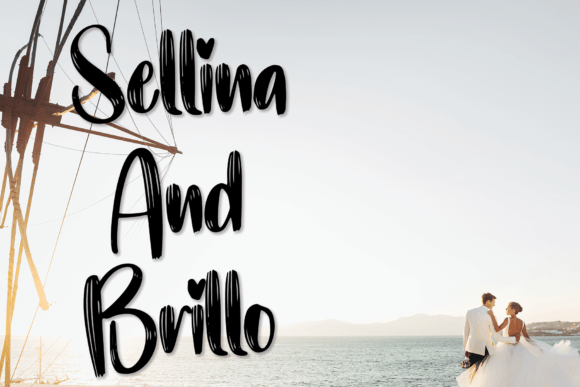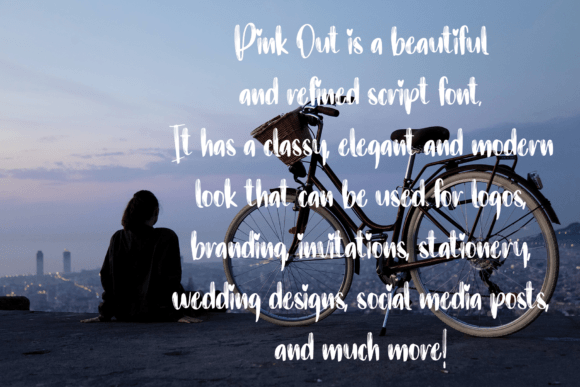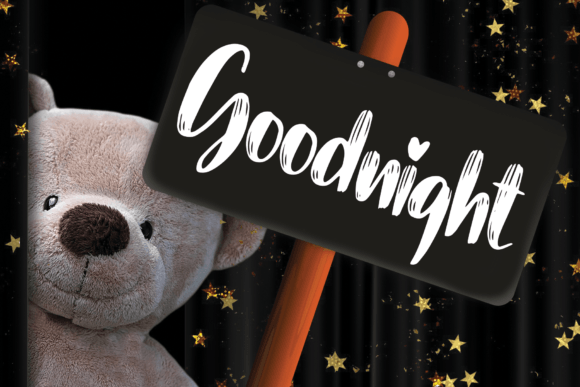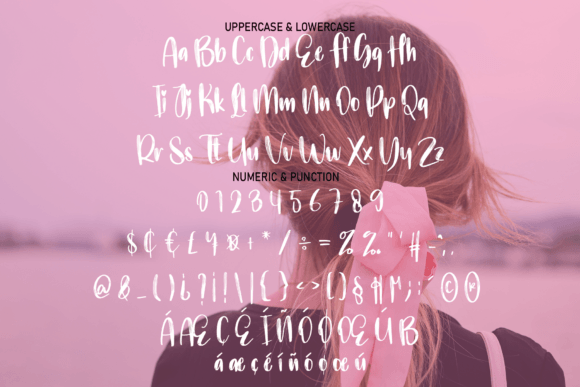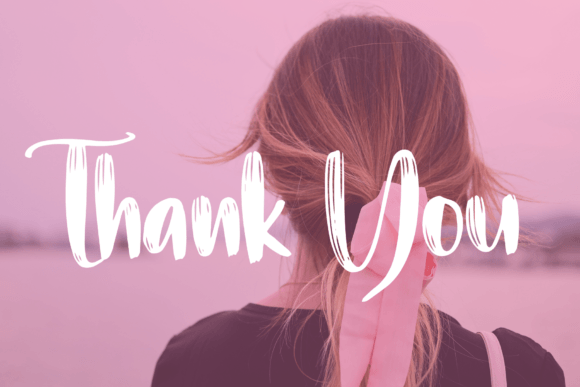
Pink out Font Font
Pink Out is a gorgeous handwritten font. Its latest style letters are perfect for wall displays, wedding invitations, social media post logos, advertisements, product packaging, product designs, labels, photography, watermarks, invitations, stationery, and any project that requires taste handwriting.